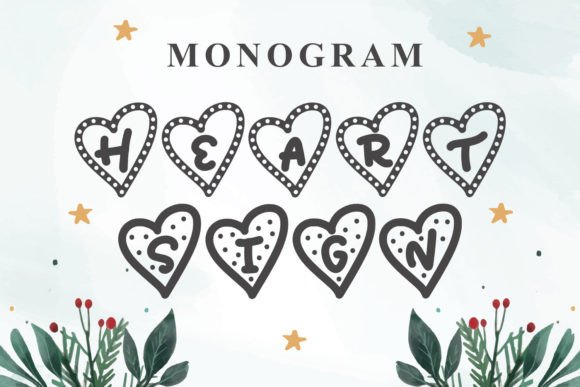
Introducing Monogram Heart Sign Font, a breathtaking display font that will make your designs burst with love and elegance. This exquisite font is the brainchild of the talented mantrasangar.supply, crafted with a vision to capture the essence of romance and heartfelt emotions.
Imagine crafting wedding invitations that radiate an aura of timeless love, with each letter elegantly intertwined, resembling a delicate monogram. The Monogram Heart Sign Font will transform your invitations into treasured keepsakes, encapsulating the joy and anticipation of the special day.
This versatile font is not limited to wedding stationery; it adds a touch of charm to any creative endeavor. Whether you're designing greeting cards for your loved ones, creating heartwarming Valentine's Day messages, or crafting eye-catching logos, Monogram Heart Sign Font will make your designs stand out.
Unleash your creativity and let Monogram Heart Sign Font infuse your designs with a touch of sophistication and elegance. Its intricate details will captivate your audience, evoking emotions and leaving a lasting impression.
Don't settle for ordinary fonts. Elevate your designs with the Monogram Heart Sign Font, and let your creations speak volumes about your impeccable taste and attention to detail. Experience the magic of this font and transform your designs into masterpieces of love and beauty.